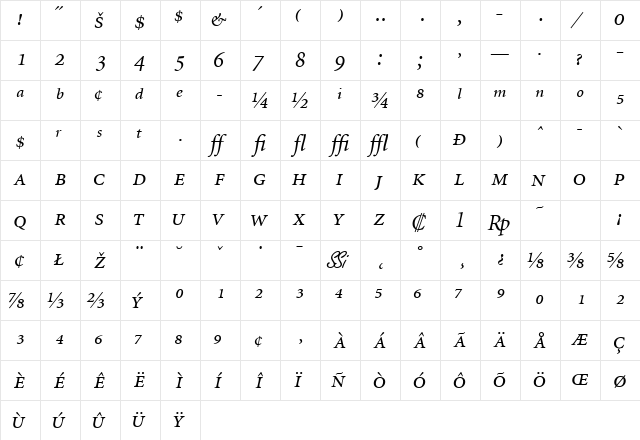
AtlantixProSSK Italic
Design Context for AtlantixProSSK Typeface
AtlantixProSSK is a composed and adaptable typeface that performs quietly and consistently across a wide range of design contexts. The dynamic lean of this cut emphasises speed and emphasis in any layout.
Pro Tip: Use AtlantixProSSK for emphasis, pull quotes, and subheadings where its slanted energy can add rhythm to the layout.